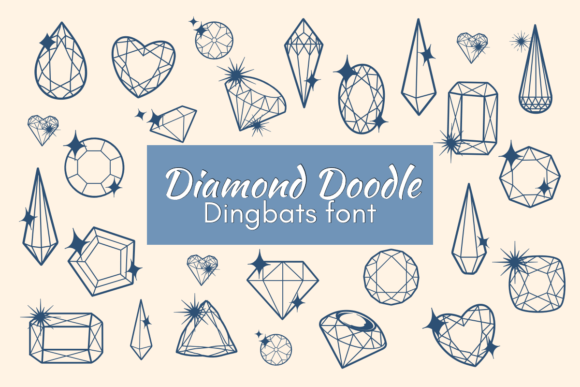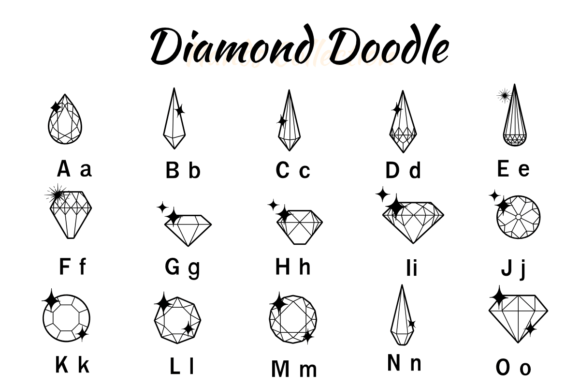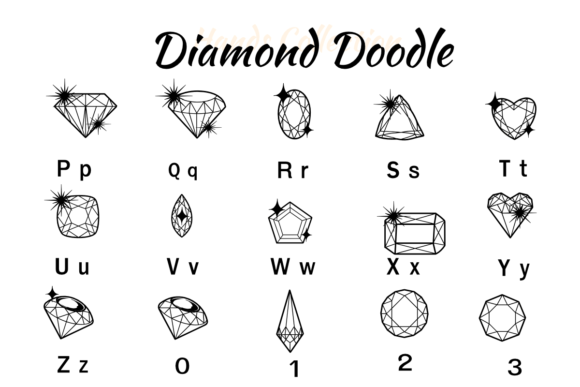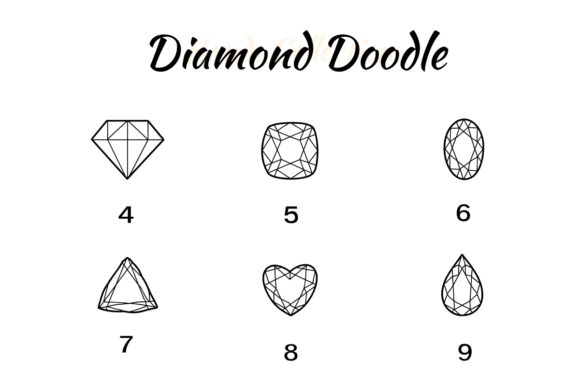
Diamond Doodle Font: Sparkly & Cute Dingbats for Cricut Crafts!
About the Diamond Doodle Font
Add a touch of class to your work with the Diamond Doodle Font, a truly exceptional typeface. Diamond Doodle is a dingbats font with a sketched style. This font can enhance your creative projects such as wedding invitations, DIY, crafts, decorations, logos, and many other creative ideas.
Diamond Doodle’s sketched style is ideal for headlines, logos, and short, impactful text within branding materials or packaging designs. Its playful nature makes it perfect for projects targeting a younger demographic or those with a whimsical, handmade aesthetic. Avoid using it for large blocks of body text or UI elements; its informal style is less legible in extended use.
Pairing Diamond Doodle with a clean sans-serif font like Helvetica Neue for body copy creates a balanced contrast, allowing the playful dingbats to stand out without overwhelming the readability. For a more sophisticated feel, consider pairing it with a classic serif such as Garamond or a delicate script font for added elegance.
The font exudes a friendly, handcrafted personality. It is best suited for brands emphasizing creativity, individuality, and a touch of informal charm.
Diamond Doodle Font Usage Examples
Diamond Doodle Font Example